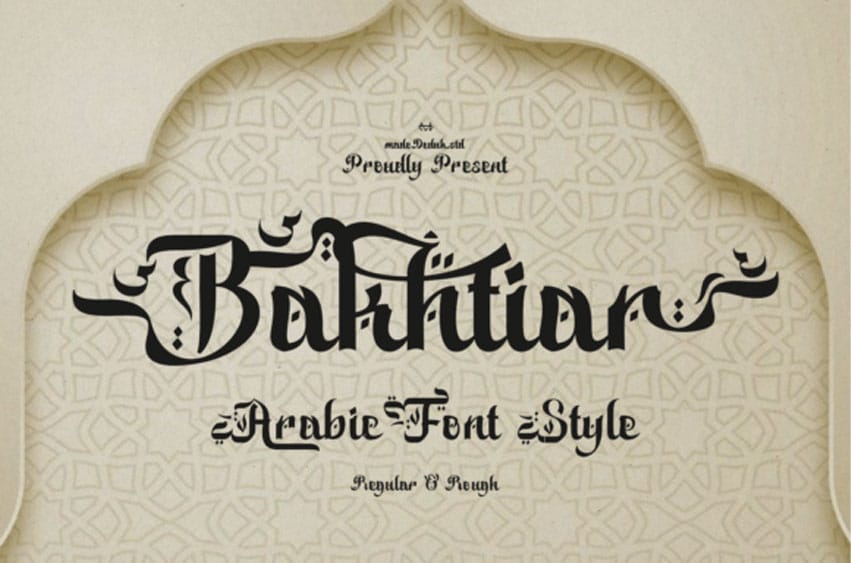
Bakhtiar Font Travel through the artistry of Middle Eastern traditions with Bakhtiar, a majestic display font inspired by classical Arabic calligraphy. This typeface artfully adapts the fluid, rhythmic strokes and sharp, diamond-shaped diacritics of traditional Kufic and Naskh scripts into a modern Latin alphabet.
Characterized by exaggerated horizontal swashes and intricate, flowing flourishes, it captures a sense of ancient heritage and regal elegance. Bakhtiar is an extraordinary choice for cultural event branding, high-end restaurant logos, exotic product packaging, and adventurous travel titles. Whether you are designing for a luxury resort or a historical project, this font delivers a sense of legendary power and sophisticated, global charm.